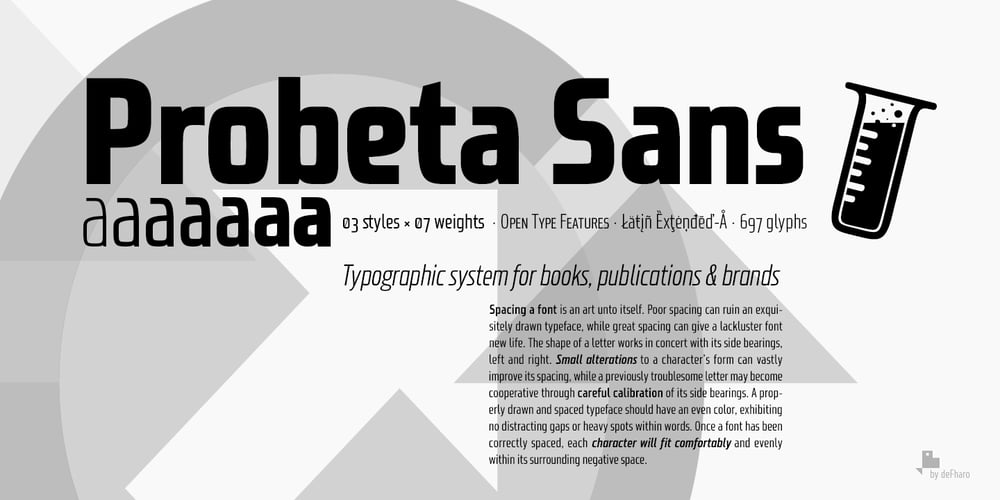
Probeta
Probeta font
Probeta Font Family was designed by Fernando Haro and published by deFharo. Probeta contains 42 styles and family package options. Probeta is an exclusive Sans Serif typeface family, condensed in proportion into three styles: Regular, Italic & Small Caps. Each family consists of 7 weights (Extra Light, Light, Regular, Medium, Semi Bold, Bold and Extra Bold). Plus three bonus fonts: Circle, Cube & arrows• Includes a bonnus font with the purchase of each style!After defining all the proportions of the new typeface, and starting from the drawing of the lowercase letter «o», in an exercise of minimalist construction, I have built all the characters, contributing with this technique, morphological coherence and a balanced reading. I have put special interest in defining the width of each character, depending on the relationship with others, then the configuration of the metrics and the exhaustive definition of Kerning, provide maximum readability in paragraph texts and titles.The use in graphic design, editorial or advertising guarantees originality and difference. Very versatile fonts for billboards, video games, movie titles, logos, publications, etc. They include the symbol of Bitcoin and other Cryptocurrencies.